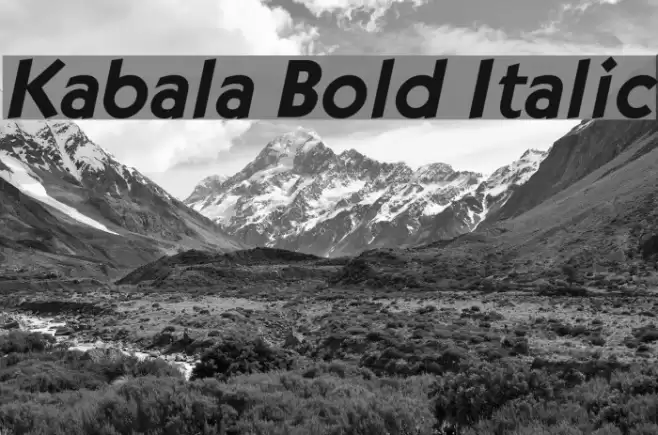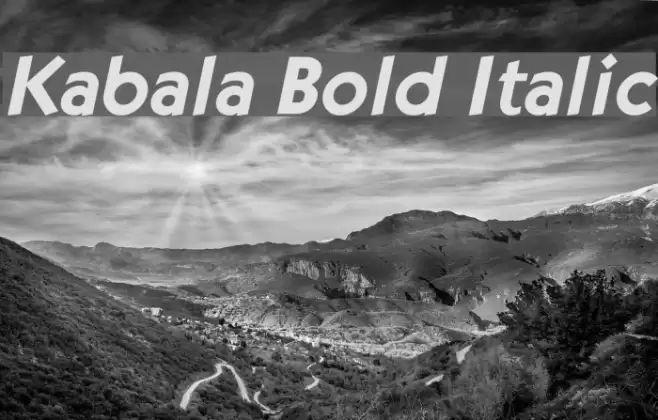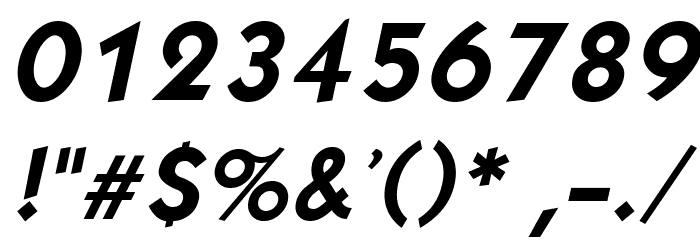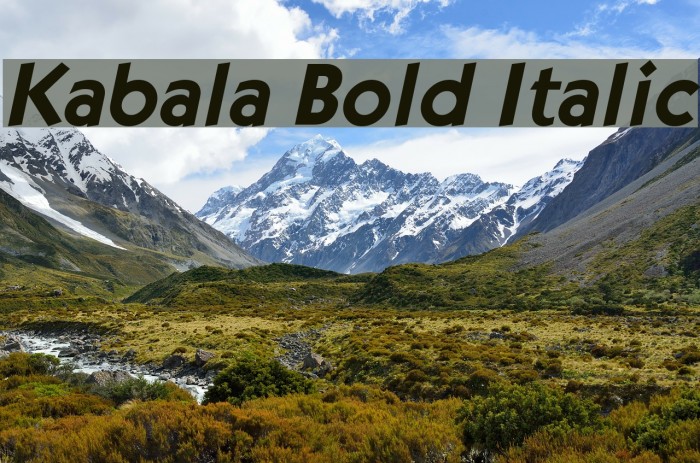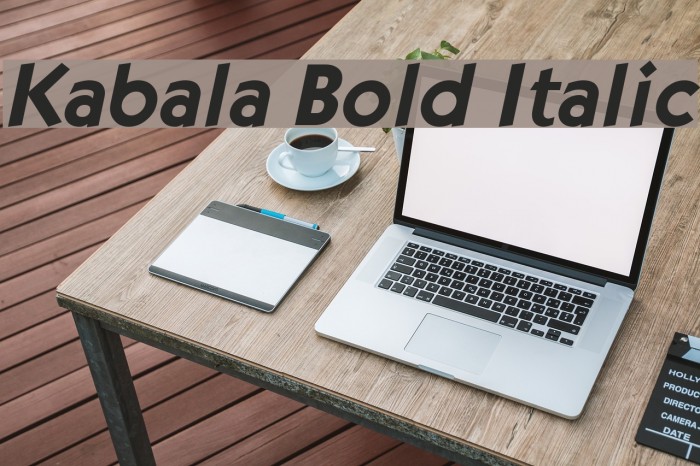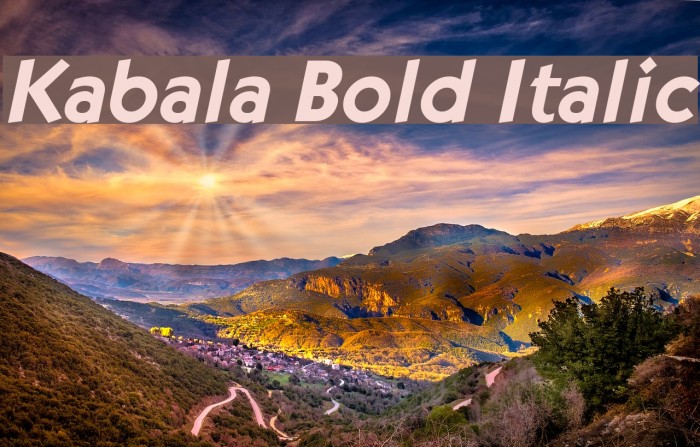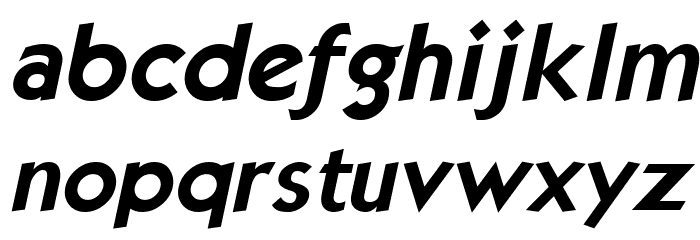
Kabala Bold Italic Font
Kabala Bold Italic Description
This font exhibits a bold and dynamic style with a noticeable italic slant, giving it a sense of movement and energy. The characters are well-defined with a strong presence, making them highly legible. The uppercase letters are slightly condensed, while the lowercase letters maintain a consistent flow. The numerals are robust and align well with the overall boldness of the font. Special characters are crafted with the same attention to detail, ensuring uniformity across all glyphs. This font is ideal for projects that require a strong visual impact while maintaining readability.
A bold, italic font with dynamic slant and strong legibility.
- Proposed Projects: Ideal for branding, advertising, headlines, and poster design.
- Category: Sans-Serif
- Use Case: Headlines, Logos, Advertising